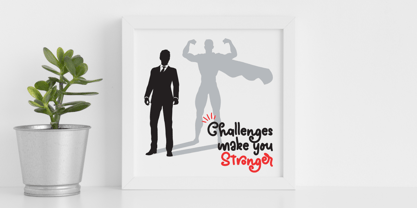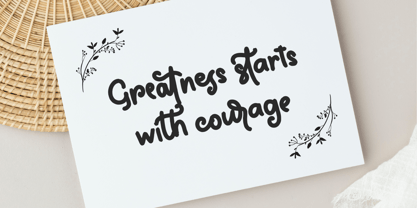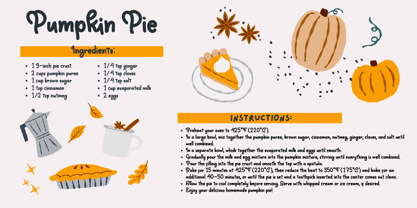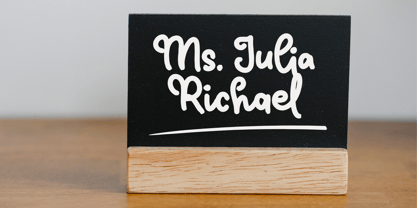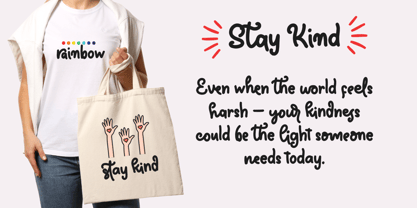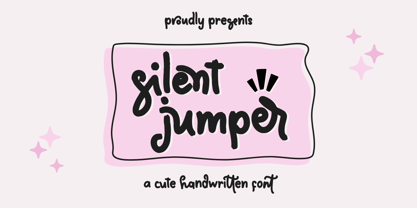
Silent Jumper
by Beary
The Silent Jumper Font Family was designed by Dian Haniffan Hadi and published by Beary. Silent Jumper contains 1 styles. More about this family
Silent Jumper is a sweet handwritten font filled with charm and character. Designed with numerous ligatures, it ensures your text flows beautifully and naturally, adding a personal and heartfelt touch to your projects.
Perfect for versatile applications, Silent Jumper shines on merchandise, greeting cards, mug designs, tote bags, t-shirts, and so much more. Let its delightful style elevate your creations with a cozy and playful vibe.